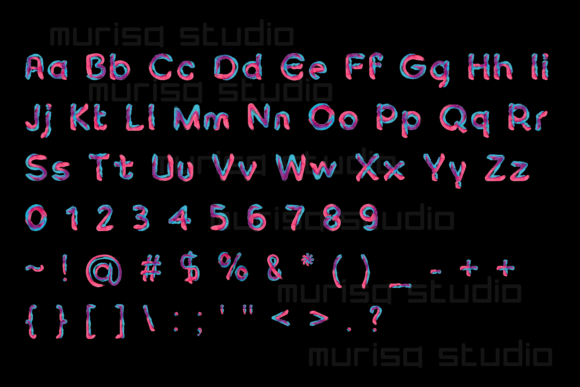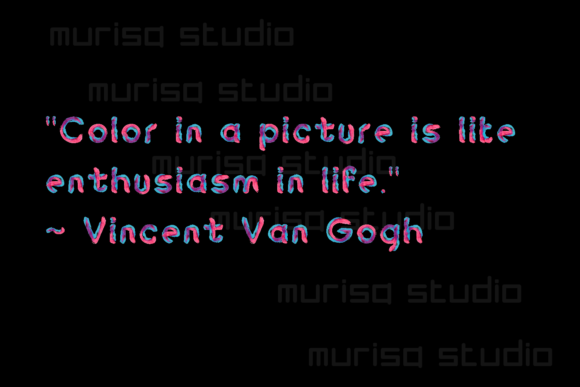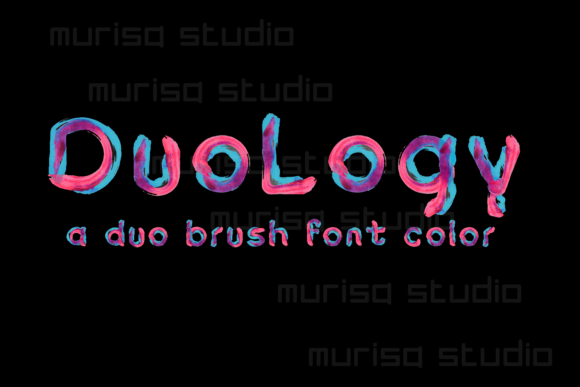
The Designer’s Delight: Unleashing the Power of DuoLogy Font
I’ll never forget the time I was working on a project for a client who needed a font that would make their brand stand out. I had spent hours scouring the internet for the perfect one, but nothing seemed quite right. That was until I stumbled upon DuoLogy Font. This cool and uniquely designed color font has been a game-changer for my design workflow, and I’m excited to share its awesomeness with you! 😊
An Honest Review of DuoLogy Font
- ✨ Unique and eye-catching design: DuoLogy Font is unlike any other font I’ve seen. Its color and style make it perfect for adding a pop of personality to any design.
- ✅ Versatility: Whether I’m working on a logo, brochure, or social media graphic, DuoLogy Font seems to fit in seamlessly.
While DuoLogy Font is an amazing addition to any design library, there are a few things to keep in mind:
- ⚠️ Color font limitations: As an OpenType-SVG font, DuoLogy Font may not work as seamlessly with certain design software or platforms.
The Backstory Behind DuoLogy Font
DuoLogy Font was created by a talented designer who wanted to push the boundaries of traditional typography. Inspired by the beauty of duality and contrast, they crafted a font that would bring a fresh perspective to the world of design. The result is a font that’s both visually striking and incredibly versatile.
| Is DuoLogy Font suitable for beginners? | Absolutely! DuoLogy Font is easy to use and integrate into your design workflow. The font comes with a range of features and alternates, making it accessible to designers of all skill levels. |